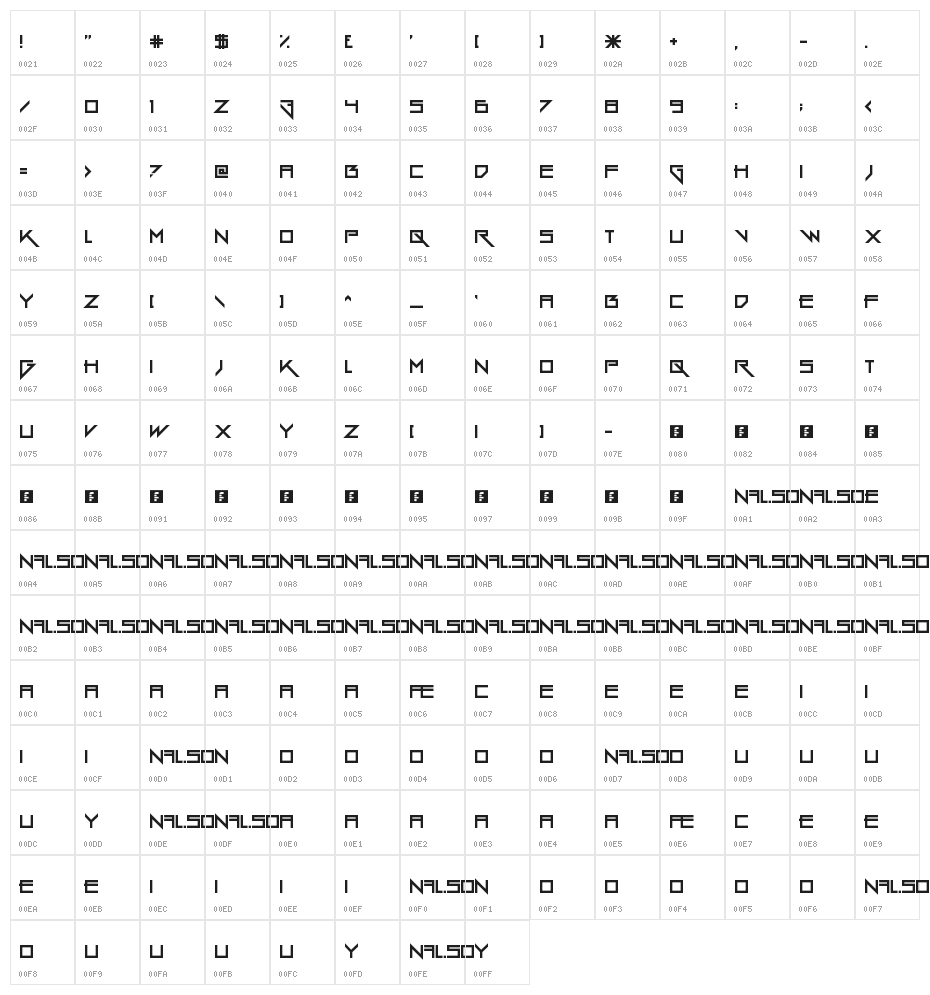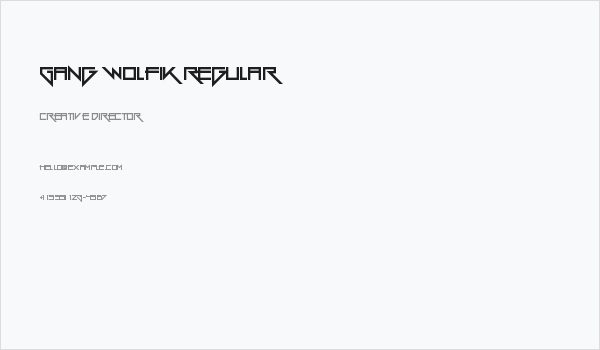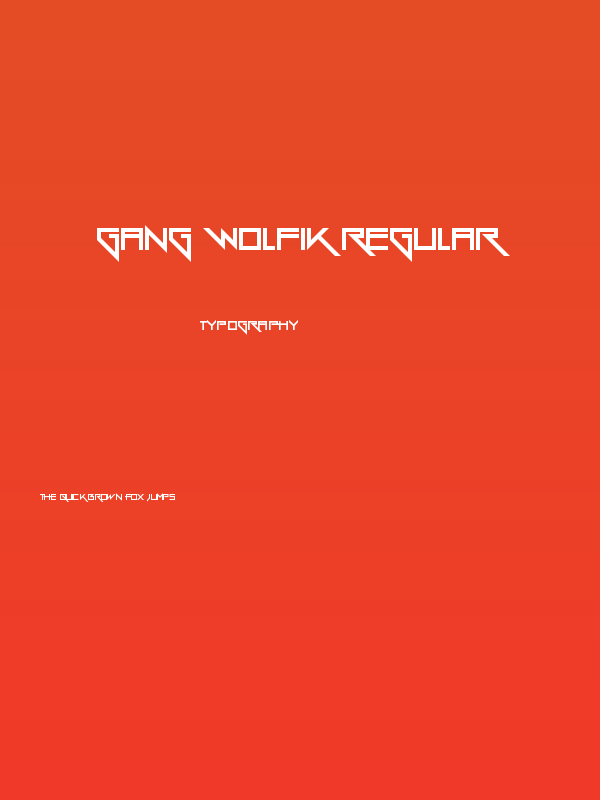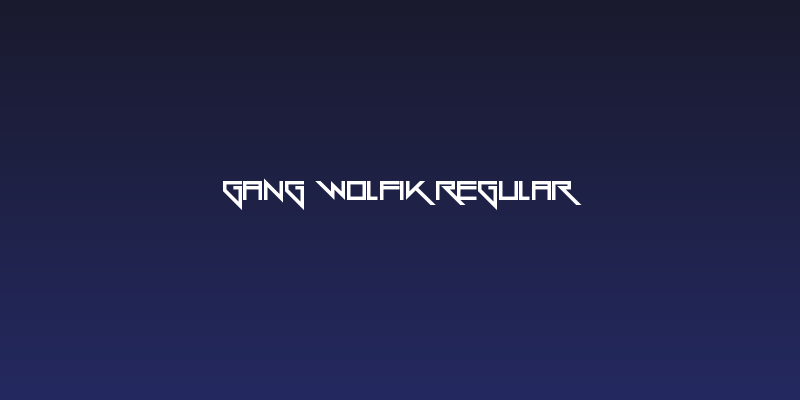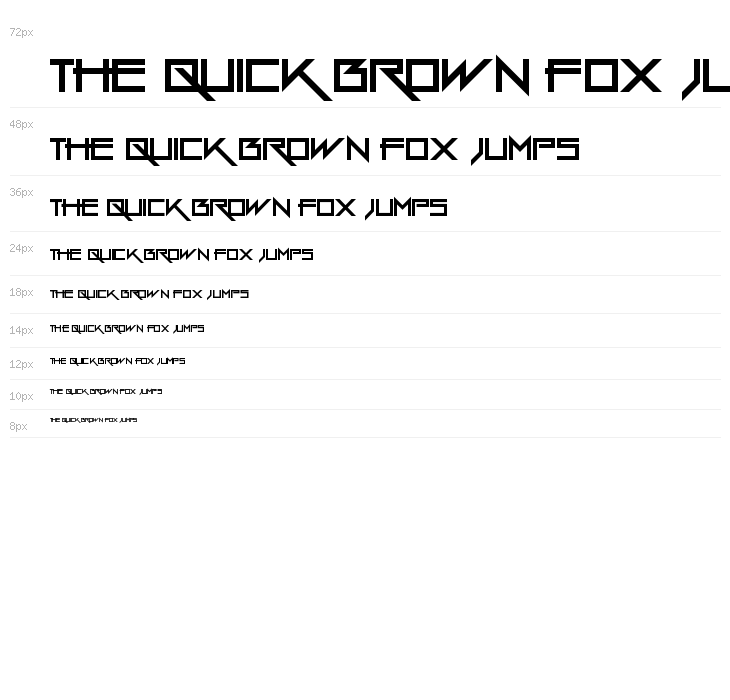
Gang Wolfik Regular Font
Gang Wolfik Regular Description
This font features a bold, angular design with sharp edges and geometric shapes. The characters are constructed with a futuristic and aggressive style, reminiscent of digital or sci-fi aesthetics. The uppercase letters are particularly striking, with unique cuts and angles that give them a dynamic appearance. The lowercase letters maintain this angular theme, ensuring consistency throughout the typeface. Numbers and special characters are equally bold and stylized, making them stand out. The overall design is highly decorative, making it suitable for projects that require a strong visual impact.
| Overall Style | Futuristic, Edgy, Geometric |
| Proposed Projects | Ideal for sci-fi themed projects, video game titles, movie posters, and branding that requires a modern, edgy look. |